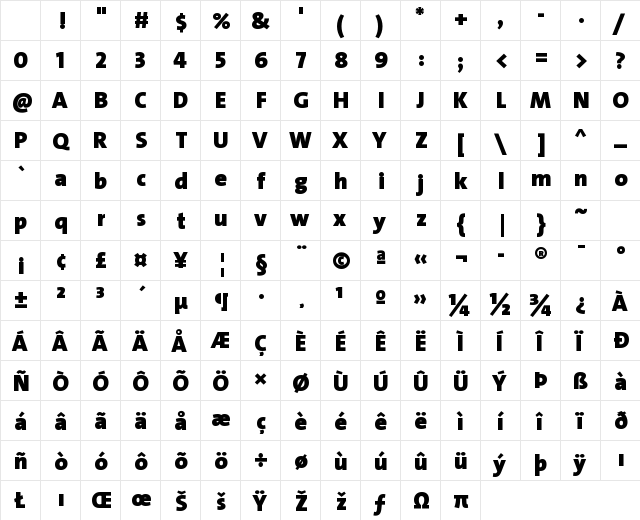
Complete Bahij TheSansArabic Black Regular glyph index. Displaying only characters natively supported by Bahij TheSansArabic Black Regular font.
Bahij TheSansArabic Black is a composed and adaptable typeface that performs quietly and consistently across a wide range of design contexts.
Who designed the Bahij TheSansArabic Black Regular font?
This font was published by Tiro Typeworks for Adobe Systems Incorporated.. Check the technical specs section for copyright and designer details.